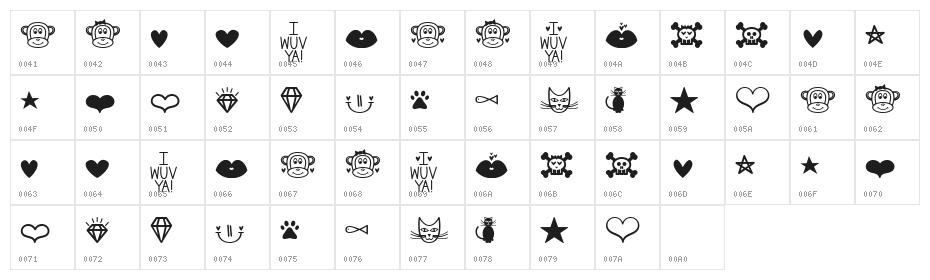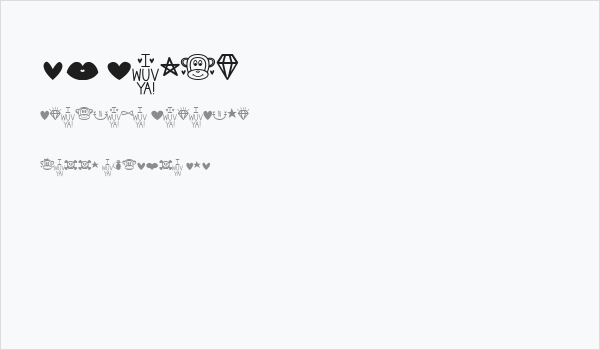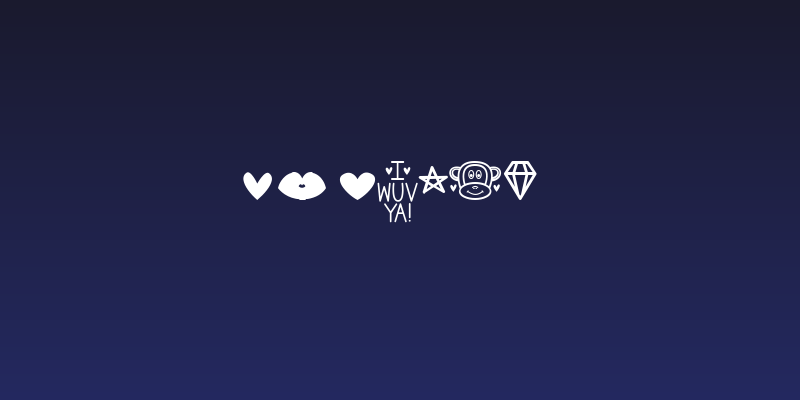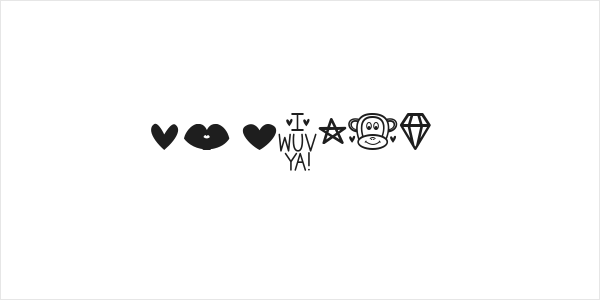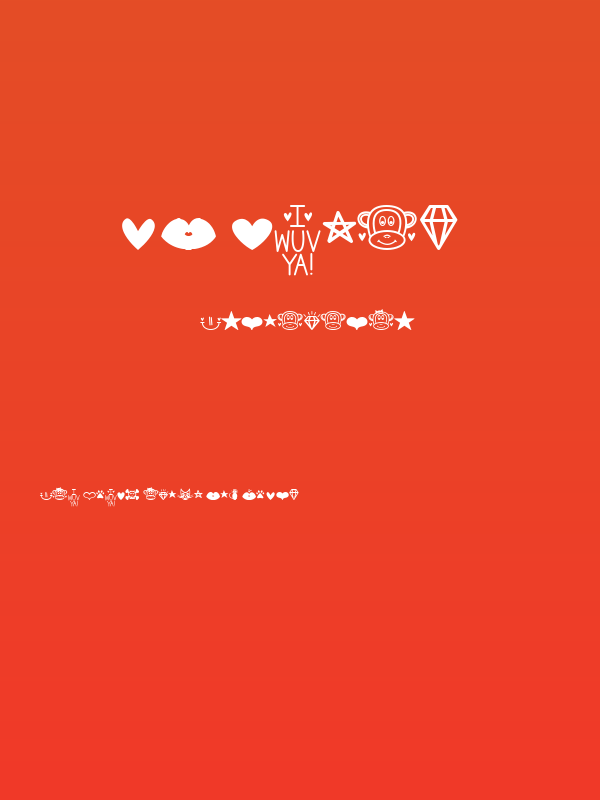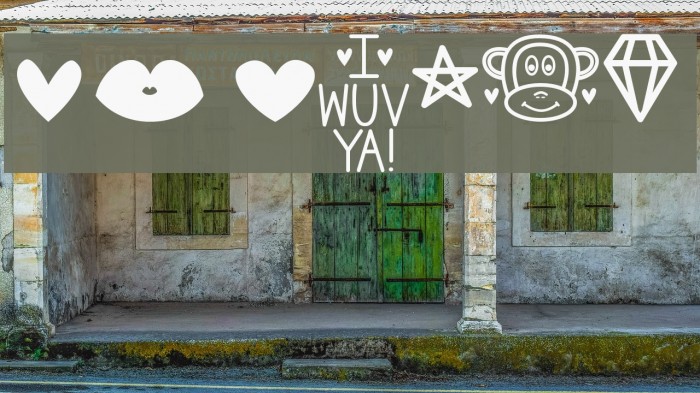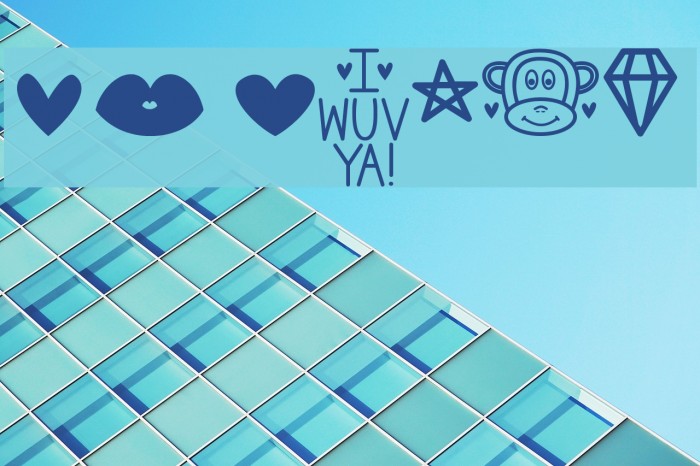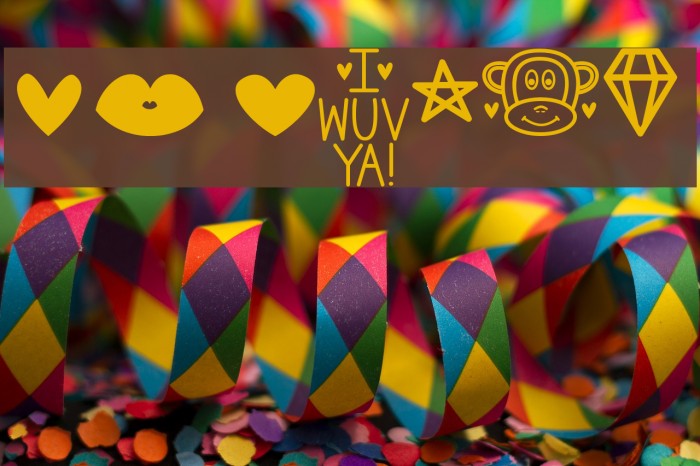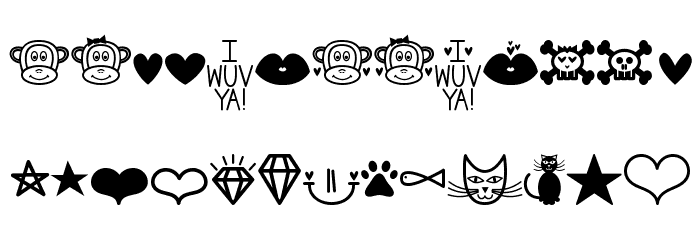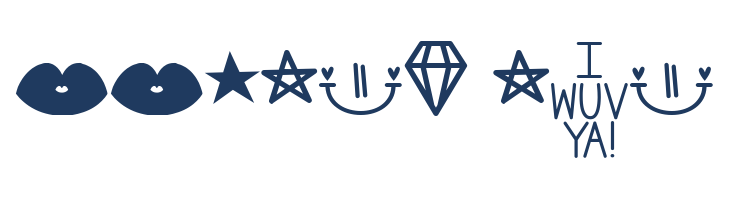
MF Dings 2 Font
MF Dings 2 Description
This collection features a playful and whimsical set of dingbats, showcasing a variety of fun and quirky symbols. The designs include cute monkeys, hearts, lips, and playful text elements like 'I WUV YA!' alongside other charming icons such as stars, diamonds, and animal motifs. The style is bold and cartoonish, with thick lines and simple shapes that convey a sense of fun and lightheartedness. These symbols are perfect for adding a touch of humor and personality to any project, making them ideal for creative and informal designs.
| Overall Style | Playful and Cartoonish |
| Use Case | Decorative elements, informal designs, and playful projects. |
| Proposed Projects | Ideal for greeting cards, children's book illustrations, playful branding, and social media graphics. |